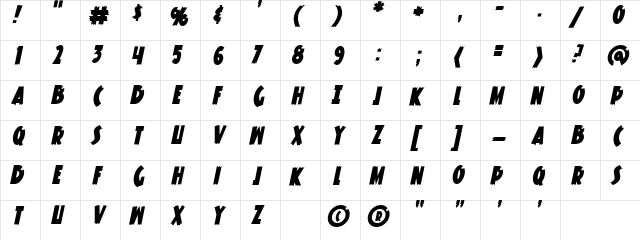
Knuckle Sandwich Classic Italic
Design Context for Knuckle Sandwich Classic Typeface
Knuckle Sandwich Classic wears its vintage influences proudly, with letterforms that recall mid-century signage, classic packaging, and nostalgia-driven design. The dynamic lean of this cut emphasises speed and emphasis in any layout.
Font Pairing: Combine Knuckle Sandwich Classic with a simple slab or neutral sans — period-accurate companions reinforce the vintage feel without competing for attention.
Pro Tip: Lean into Knuckle Sandwich Classic's period character by pairing it with aged paper textures, muted colour palettes, and vintage illustration styles.